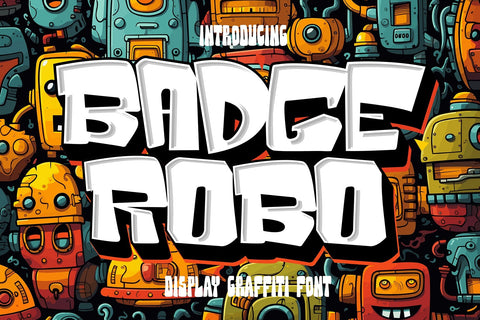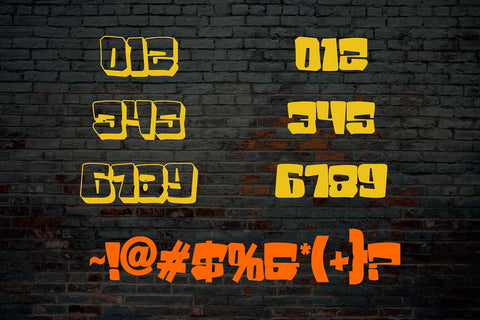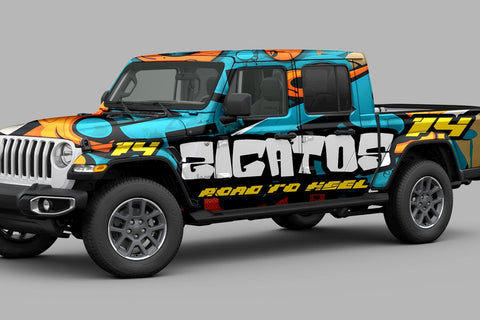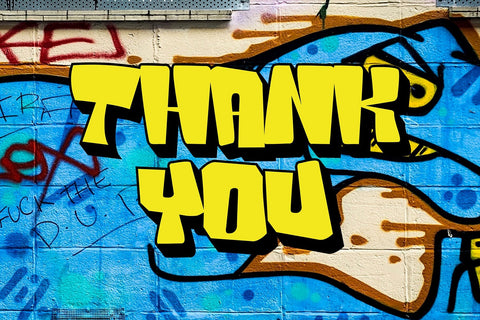
Badge Robo - 3d Bold Display Graffiti Font
"Badge Robo" is a 3D display graffiti font with very bold and impactful characters. Fonts like this are often used in designs where you want to create a bold, attention-grabbing, and three-dimensional text effect. This style can be seen in various design applications, including street art, posters, or any project where you want your text to stand out prominently.
- Graffiti Characters looks